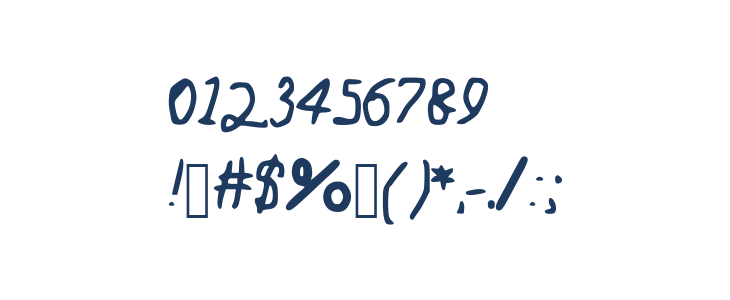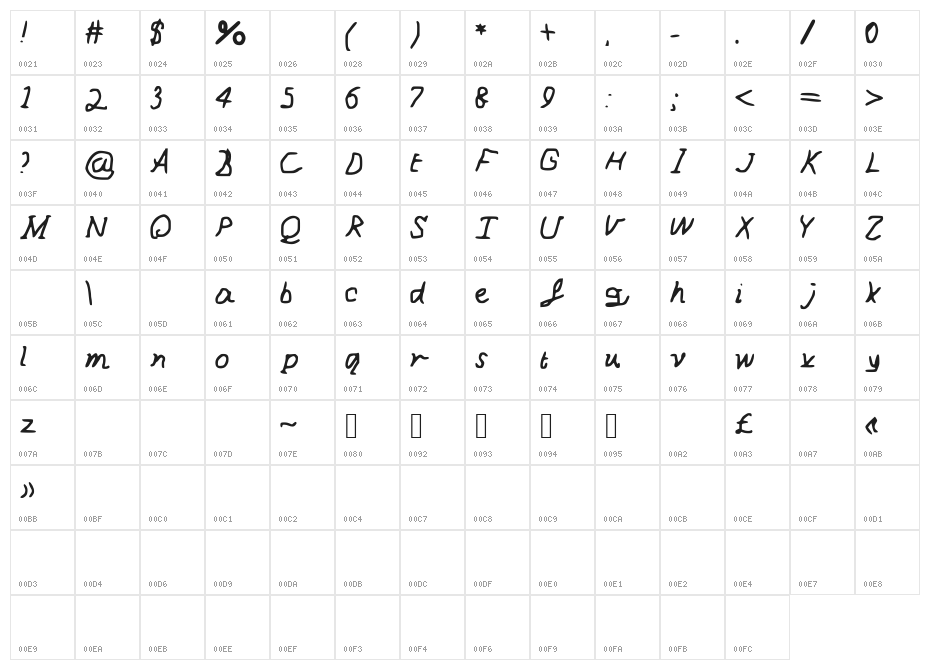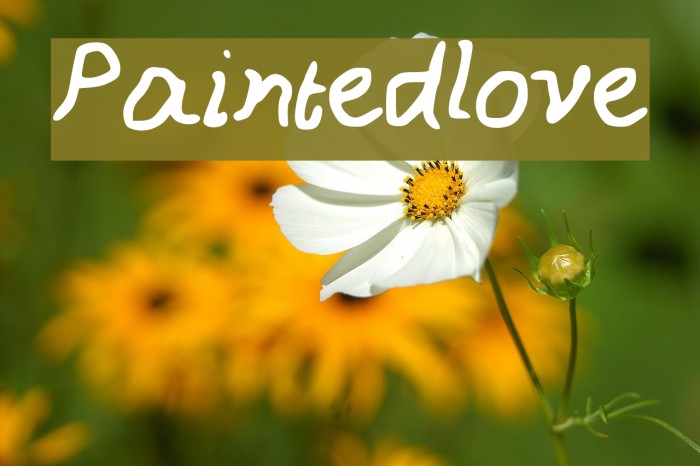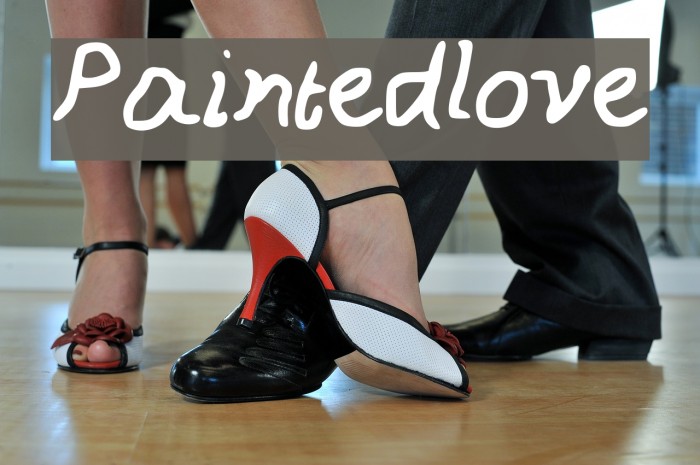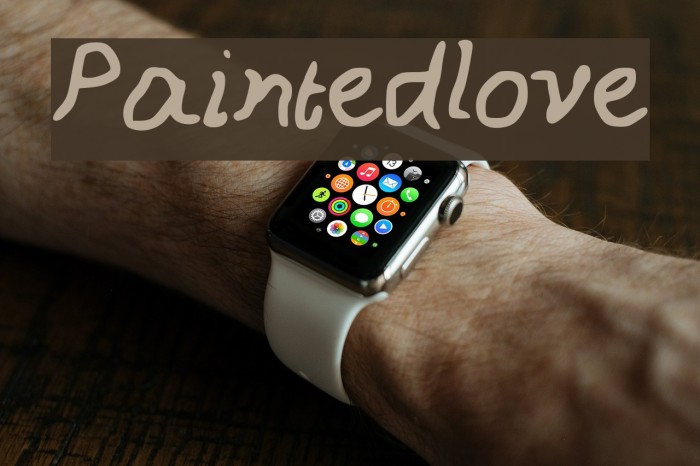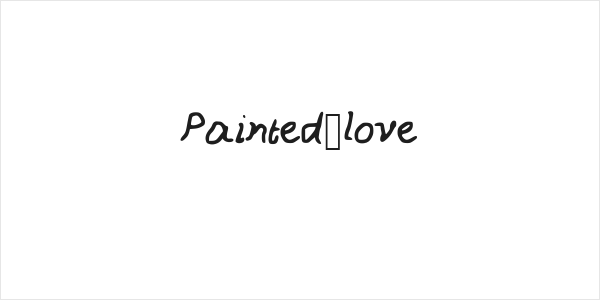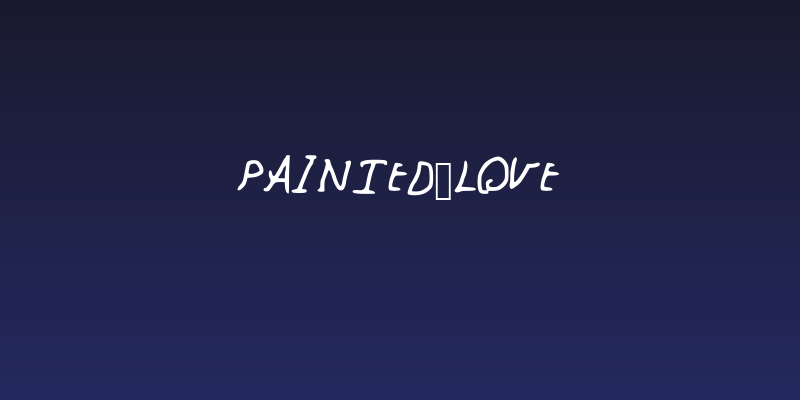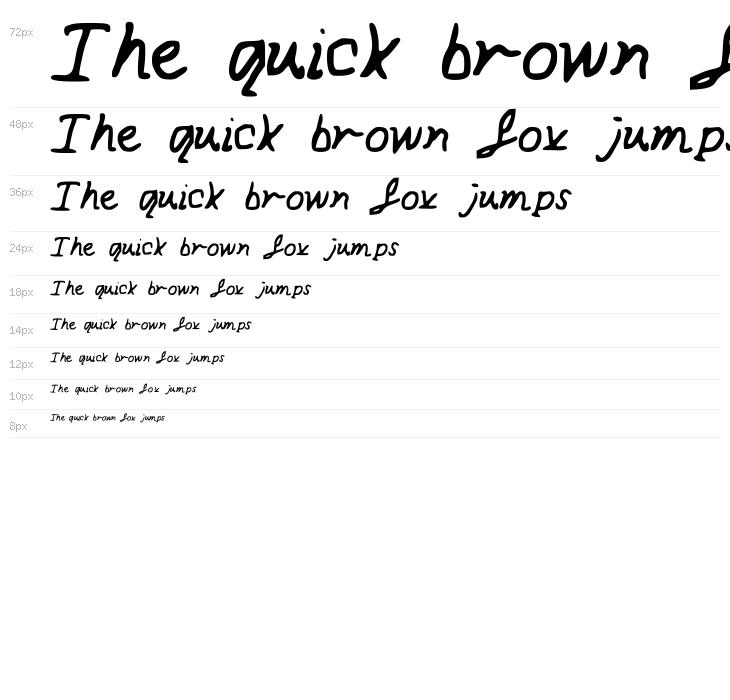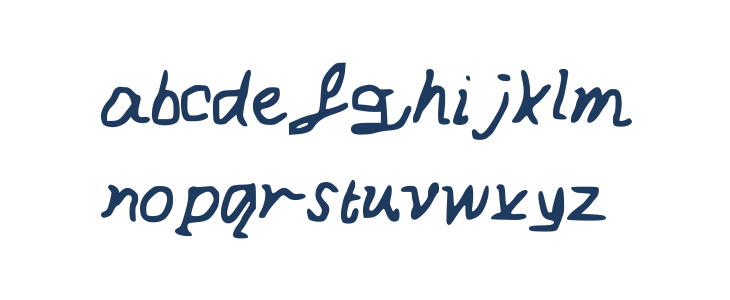
Painted_love Font
Painted_love Description
This font exudes a playful and artistic flair, characterized by its handwritten style that mimics the fluidity of brush strokes. The letters are slightly slanted, giving it a dynamic and lively appearance. The uppercase and lowercase letters maintain a consistent flow, with some characters featuring unique loops and curves that add to its charm. The numbers and special characters are equally expressive, maintaining the same artistic quality. This font is perfect for projects that require a personal touch or a creative, informal vibe.